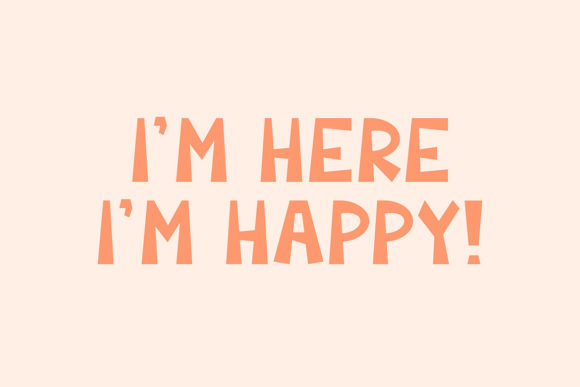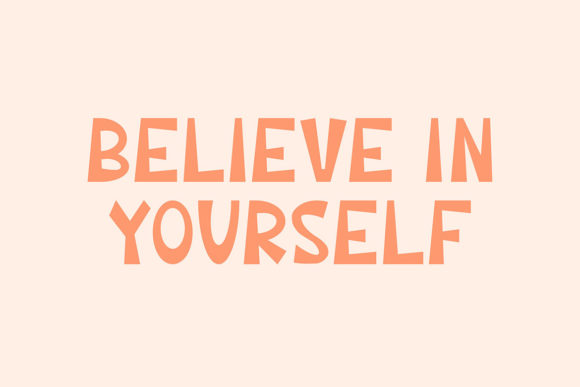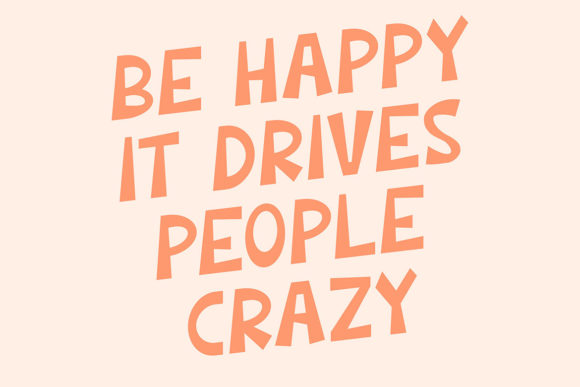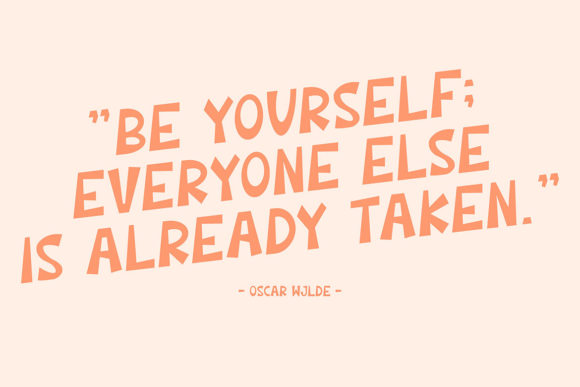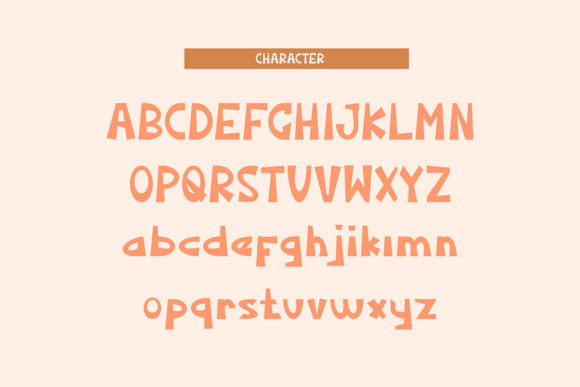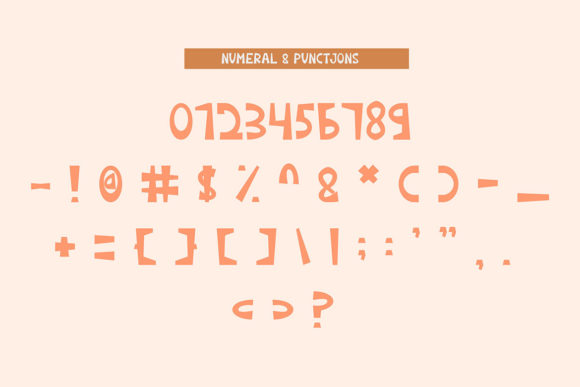
Discover the Charm of Cartons Font
Have you ever been working on a design project and suddenly, the perfect font pops into your mind? It’s that magical moment when everything clicks, and your creativity flows freely. For designers, finding the right font can be the key to unlocking a stunning visual identity. That’s exactly what Cartons Font does – it brings a touch of playfulness and elegance to your designs.
Cartons Font is a bold and whimsical handwritten font designed to add a personal touch to your projects. Its versatility makes it perfect for a wide range of applications, from logos and branding to social media graphics and advertisements. Whether you’re a seasoned designer or just starting out, Cartons Font is an invaluable asset to your toolkit.
Cartons Font Key Features
- Font Family: Cartons is a sans-serif font family with a unique, playful design.
- Size: Cartons font family includes 6 weights: Light, Regular, Medium, Bold, Extra Bold, and Black.
- Resolution: Suitable for both screen and print use, with high resolution at 300 DPI or higher.
- Language Support: Cartons font family supports a wide range of languages, including Latin, Cyrillic, and Greek alphabets.
- Unique Characteristics: Cartons features a distinctive rounded shape, with subtle rounded corners and a friendly feel.
Cartons Font Review
Overall, I’m quite impressed with the Cartons Font. It’s a modern, playful sans-serif font that’s perfect for projects that need a touch of whimsy. Here are some things that work well:
- ✨ Its versatility: Cartons Font works well for both digital and print projects, and it’s easy to pair with other fonts.
- ✨ Its wide range of weights: From light to bold, Cartons Font offers a variety of weights to suit different design needs.
- ✨ Its smooth lines: The font’s clean lines and rounded edges make it easy on the eyes and perfect for reading.
- ⚠️ Limited language support: Cartons Font may not be suitable for projects that require a wide range of languages.
- ⚠️ Not ideal for formal projects: While Cartons Font is great for playful projects, it may not be the best choice for formal or professional projects that require a more serious tone.
In conclusion, Cartons Font is a solid choice for designers who want a modern, playful font that’s easy to use. While it has some limitations, it’s a great option for projects that need a touch of personality.
For optimal results, use Cartons Font in conjunction with bold or italic text to create visual interest.
Use Cartons Font for titles, headings, and emphasis in your designs.
Cartons Font is ideal for children’s book illustrations, educational materials, and playful branding.
Alternatives to Cartons Font
Great Vibes Font is a modern and elegant script font that is perfect for creating a unique and eye-catching design. It is ideal for use in headings, titles, and other areas where a bold and stylish font is needed.
Comparison to Cartons Font: While Cartons Font has a playful and handwritten feel, Great Vibes Font is more polished and sophisticated. Great Vibes Font is a better choice when you want to convey a sense of luxury and high-end style.
Alex Brush Font is a beautiful and elegant script font that is perfect for creating a romantic and whimsical design. It is ideal for use in headings, titles, and other areas where a soft and feminine font is needed.
Comparison to Cartons Font: While Cartons Font has a playful and casual feel, Alex Brush Font is more refined and sophisticated. Alex Brush Font is a better choice when you want to convey a sense of elegance and sophistication.
Dancing Script Font is a modern and elegant script font that is perfect for creating a bold and eye-catching design. It is ideal for use in headings, titles, and other areas where a dynamic and energetic font is needed.
Comparison to Cartons Font: While Cartons Font has a playful and handwritten feel, Dancing Script Font is more dramatic and attention-grabbing. Dancing Script Font is a better choice when you want to convey a sense of excitement and energy.